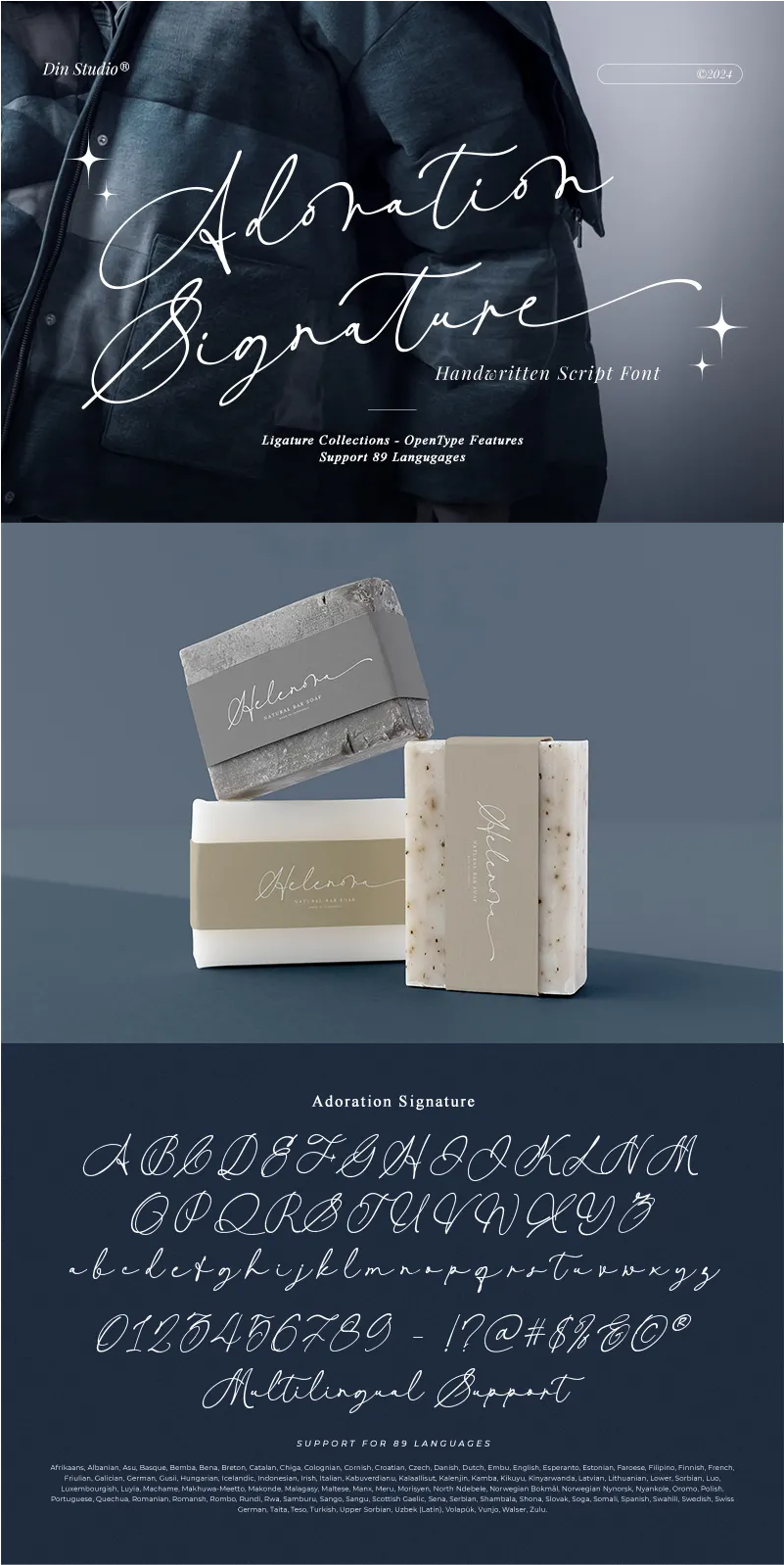
Adoration Signature Font
About Adoration Signature
Adoration Signature is a captivating handwritten font that brings a personal touch to your designs. Made in thin weight, the letters are elegantly connected, creating a flowing and organic script. The inconsistent letter proportions add a charming and authentic feel, imbuing each word with character and individuality. In addition, enjoy the features here.
Adoration Signature fits in logos, posters, flyers, branding materials, print media, editorial layouts, and many more designs. Find out more ways to use this font by taking a look at the font preview.